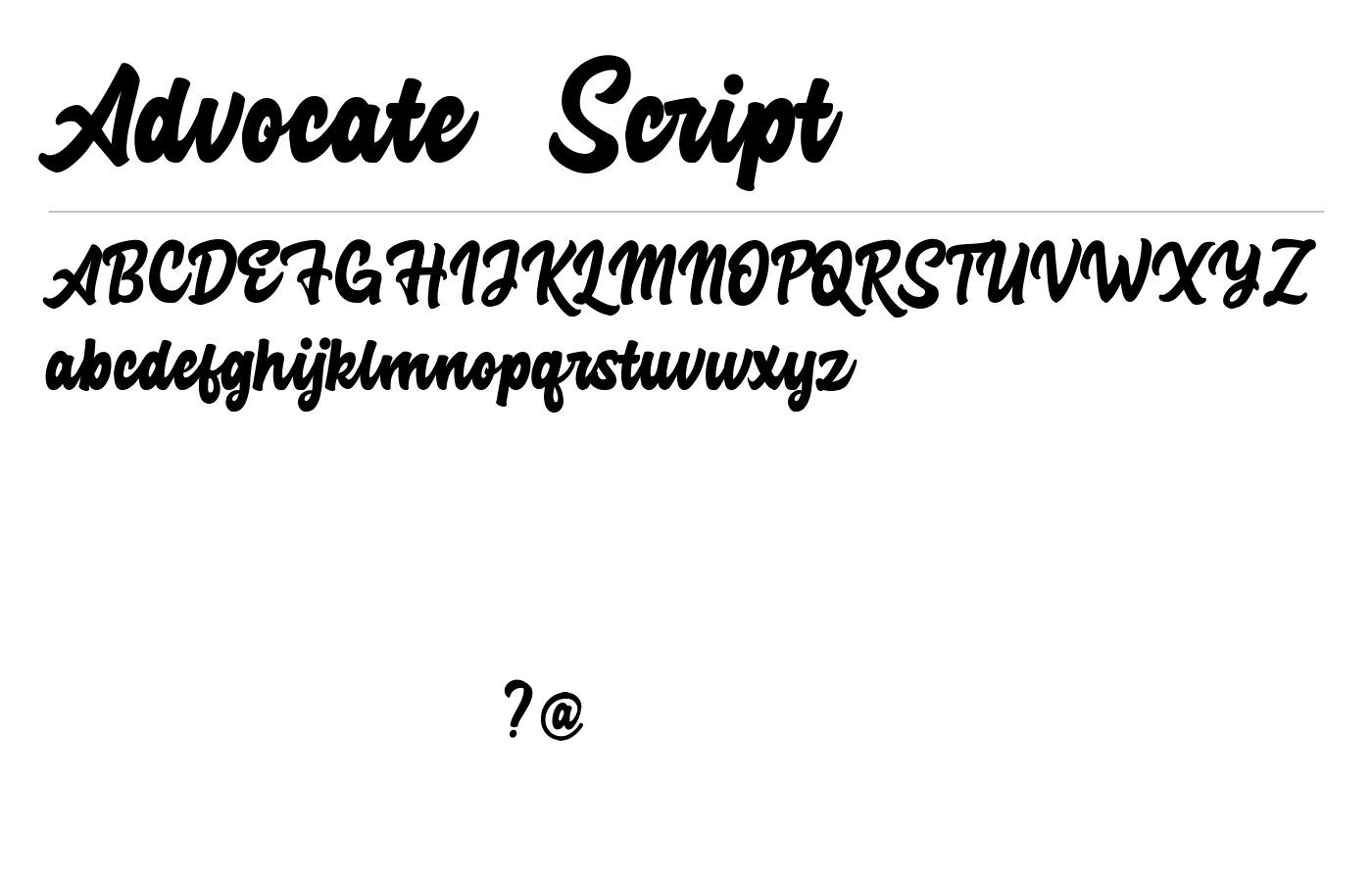
Advocate Script is a bold, lively script font with a smooth, rounded stroke style that brings a friendly and energetic vibe to any design. Its connected letterforms and medium x-height create a casual yet polished look, making it perfect for branding, logos, and invitations where a personal, approachable touch is desired. This font works well in headings and display uses, capturing attention while maintaining readability with its clear, consistent flow.
Advocate Script Font
About Advocate Script Font
| Font family | Advocate Script Font |